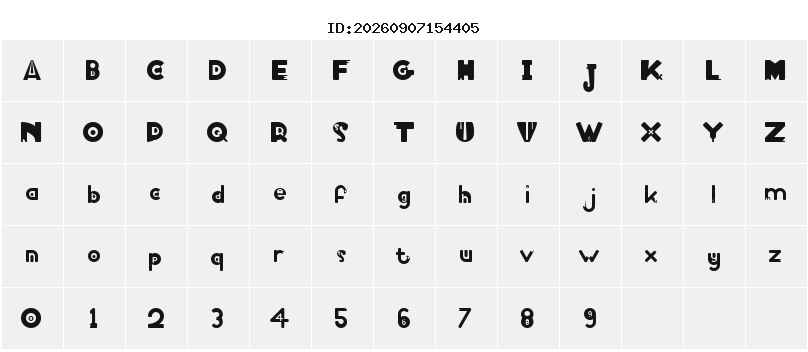
• Font Name: Underlapped
• Full Font Name: Underlapped
About Underlapped.ttf
Underlapped.ttf is a modern, elegant sans-serif font designed for ultimate readability and visual harmony. Perfect for branding, headlines, web design, and print materials.